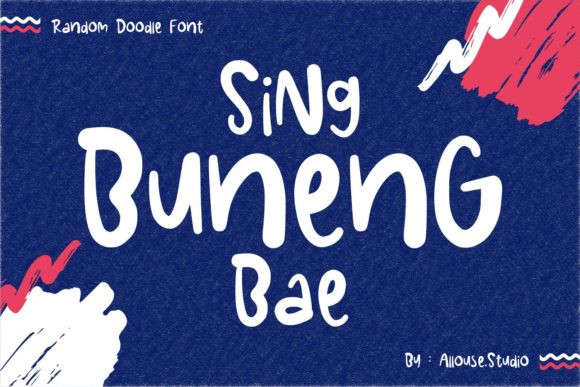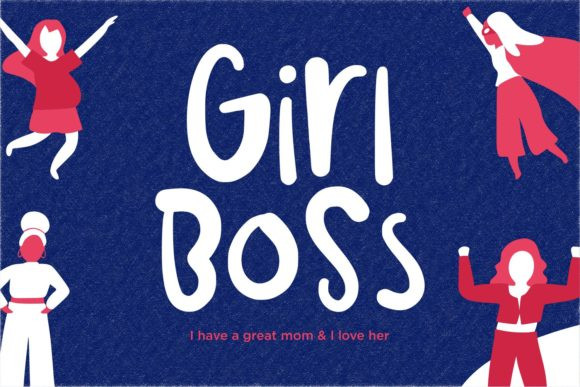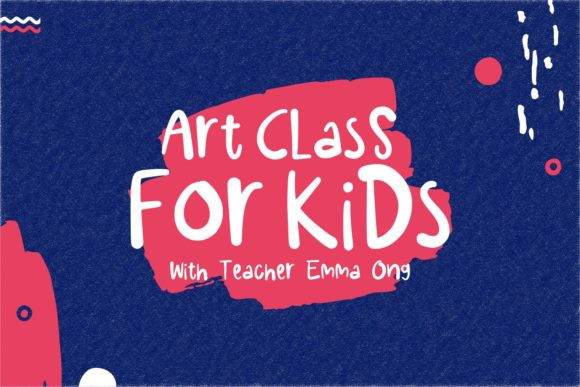
Sing Buneng Bae Font
Sing Buneng Bae is a fun, quirky and asymmetrical display font. It has a joyful touch and it will most certainly brighten up each of your school or children designs.